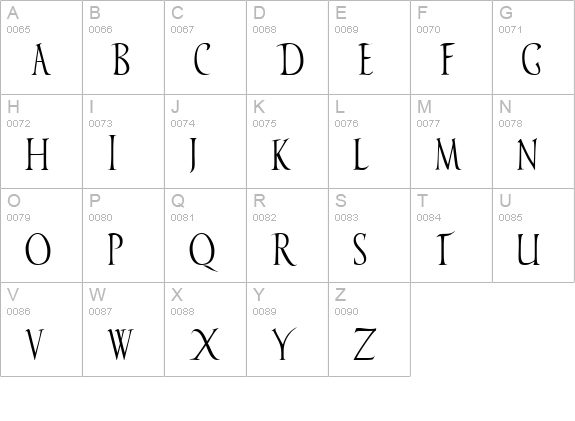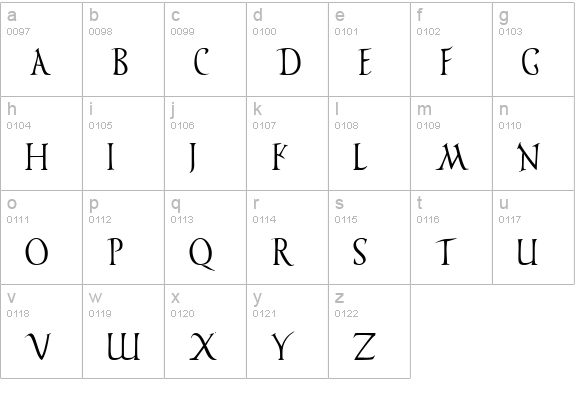
Vespasiano Demo Font Details
Introducing the stunning Vespasiano Demo font - a breathtaking display typeface that is sure to make a statement in any design project. With its elegant and sophisticated letterforms, this font exudes a sense of timeless beauty and refinement. Vespasiano Demo is perfect for adding a touch of class to logos, branding materials, invitations, and more. Its delicate strokes and graceful curves create a harmonious balance between classic elegance and modern aesthetics. Whether used in print or digital media, this font will captivate your audience and leave a lasting impression. But what truly sets Vespasiano Demo apart from other fonts is that it is completely free. That's right, this high-quality typeface is freely available to download at FontsMarket.com. Now you can add a touch of luxury to your designs without breaking the bank. With its extensive character set and multiple weights, Vespasiano Demo offers endless possibilities for creative exploration. Whether you're designing a wedding invitation, a magazine layout, or a website, this font will elevate your work to new heights. So why wait? Download Vespasiano Demo today and unlock the potential of this exceptional font. With its timeless elegance and its availability for free, it's a must-have addition to any designer's toolkit. Don't miss out on this opportunity to elevate your designs and impress your clients - get Vespasiano Demo now at FontsMarket.com.